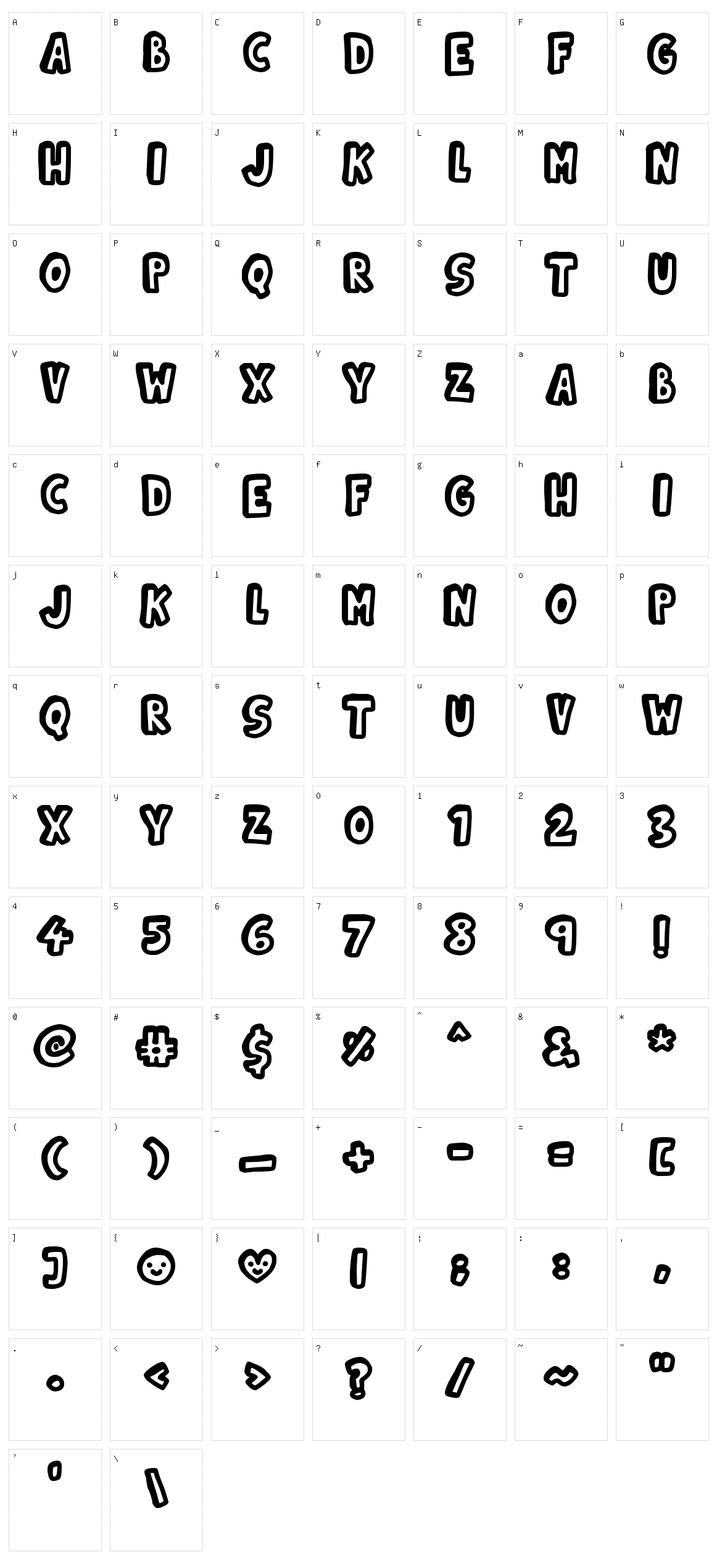
The free font Kinda 3D is carefully designed by Hawtpixel, showcasing a thoughtful balance of creativity and usability and falls under the Cartoon font style. When you download the ZIP file, it contains only 84.99 KB of font files, making it lightweight and quick to download. Please review the license details below to understand permitted usage and distribution rights. If license information is not available, we recommend using this font for personal projects only or contacting the author directly for commercial usage permissions.